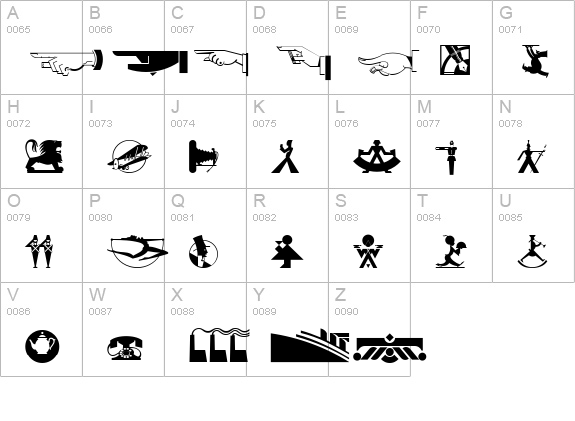
Deco Dingbats NF Font Details
Deco Dingbats NF font is a versatile and stylish typeface that adds a touch of whimsy and creativity to any design project. This unique font features a collection of decorative symbols and icons that are perfect for adding flair to invitations, posters, cards, and more. With its retro-inspired design and playful elements, Deco Dingbats NF font is sure to make your designs stand out. Best of all, this fantastic font is available for free download at FontsMarket.com. Whether you're a professional designer or just looking to spice up your personal projects, Deco Dingbats NF font is a must-have addition to your font collection. Download it today and let your creativity shine with this delightful and charming typeface.